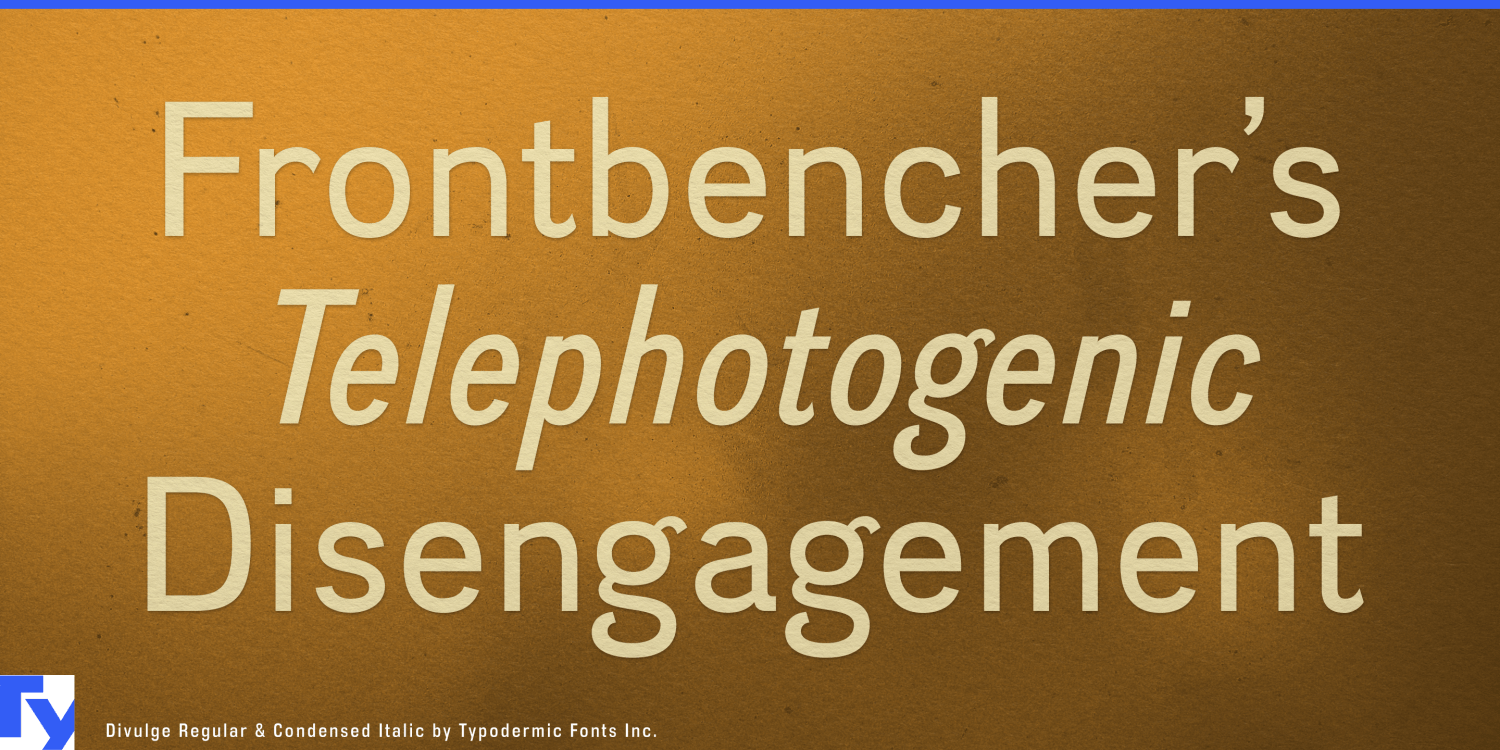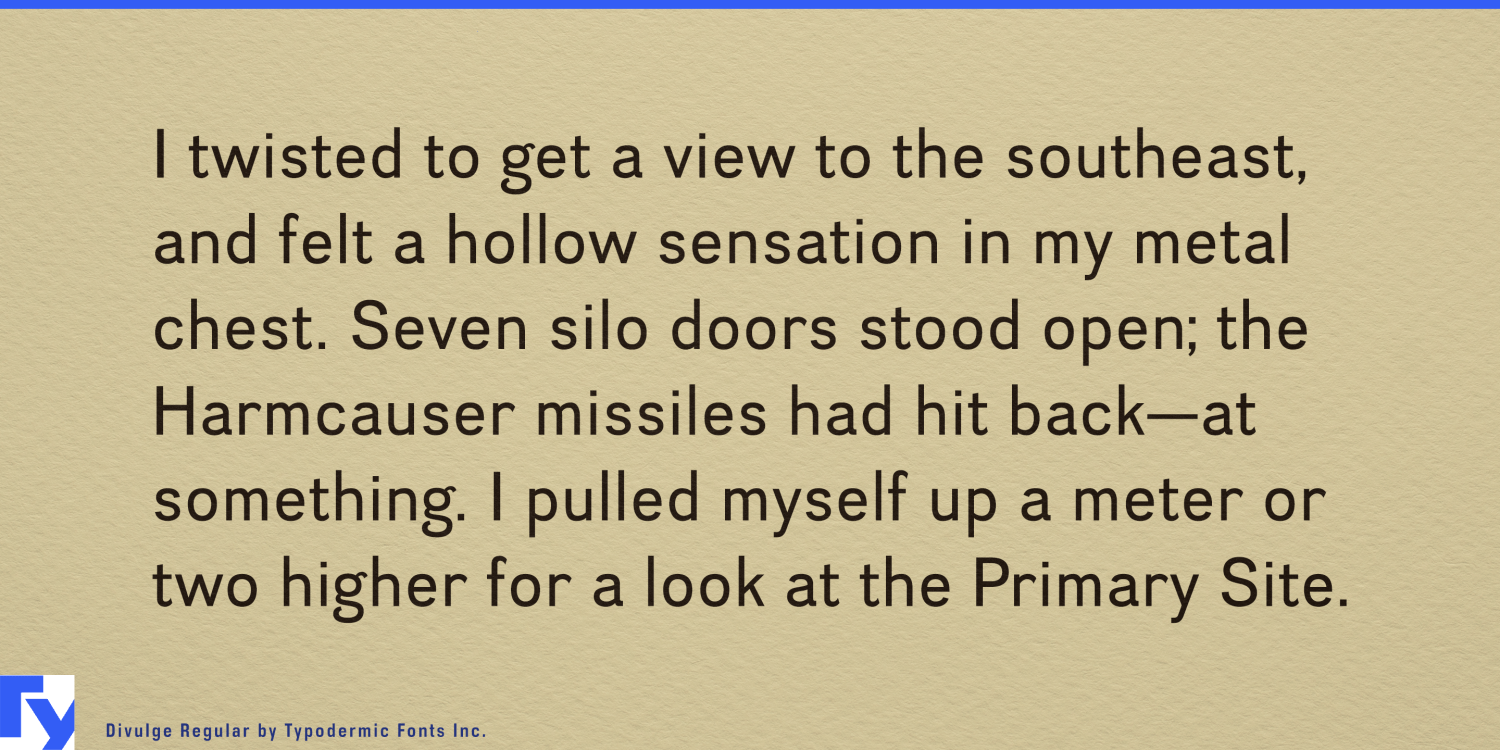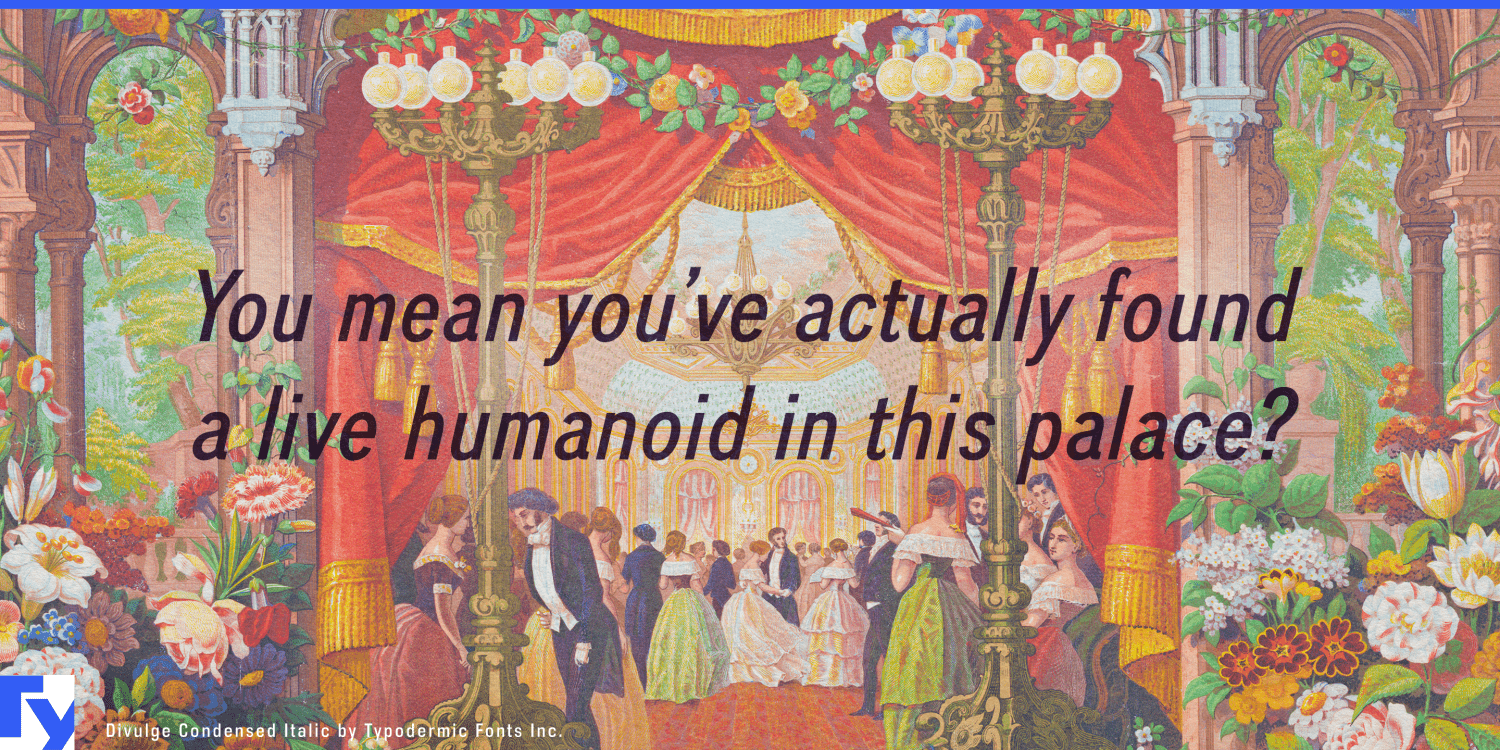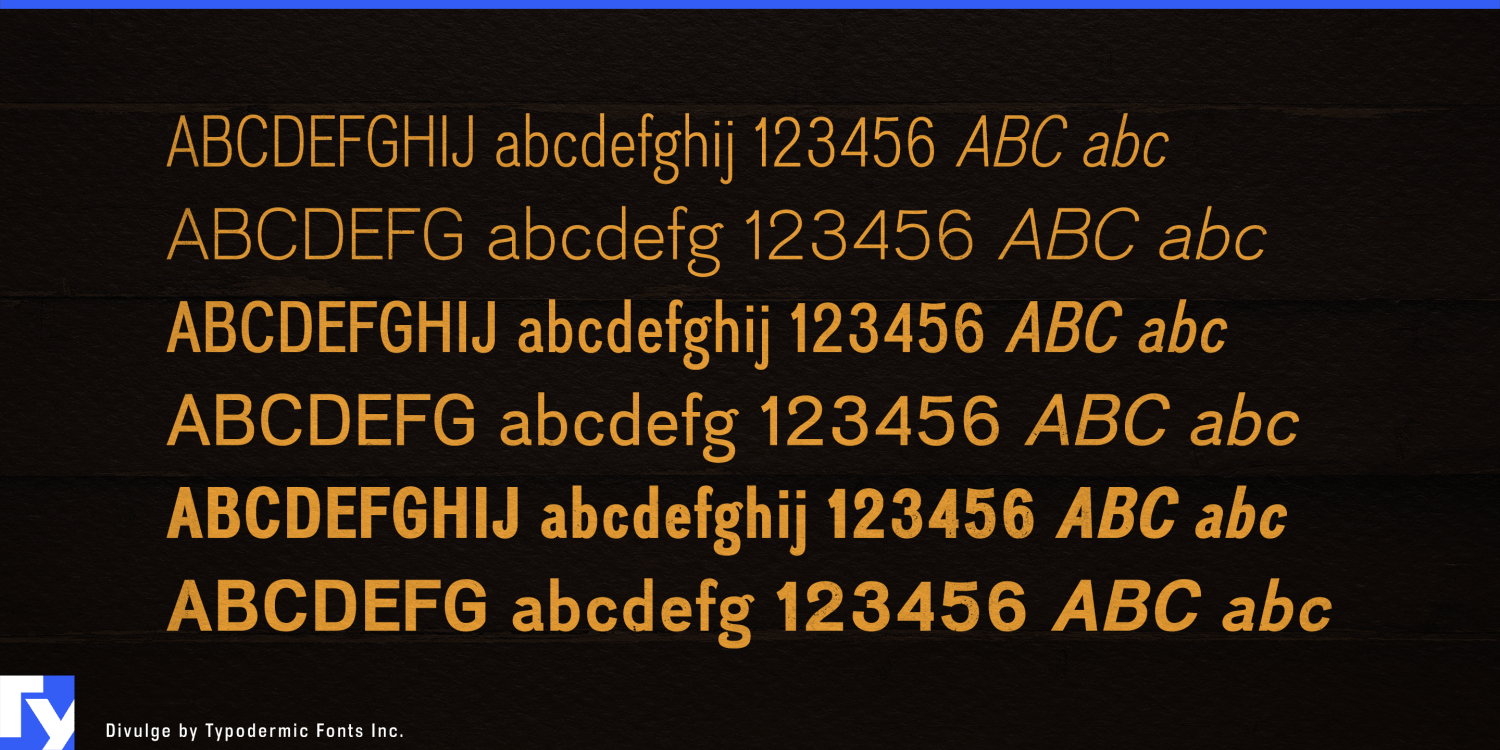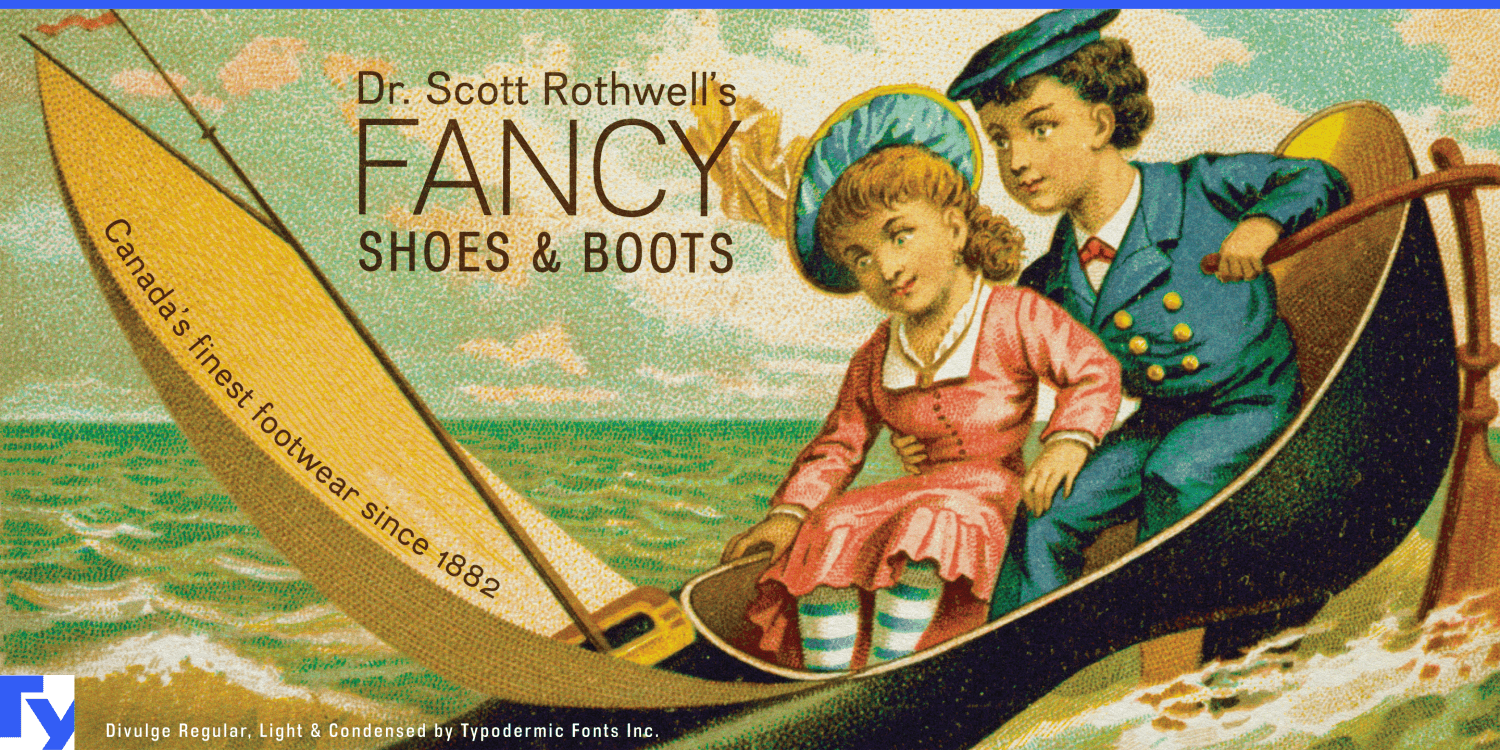
Divulge: The typeface that whispers secrets of typographic heritage. This creation distills the essence of nineteenth and early twentieth-century sans-serif metal type into a modern digital elixir. With an austere yet nuanced voice, Divulge bridges eras,…